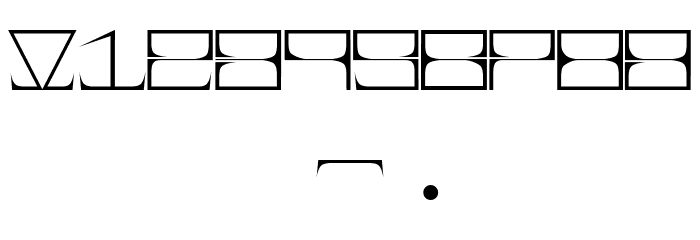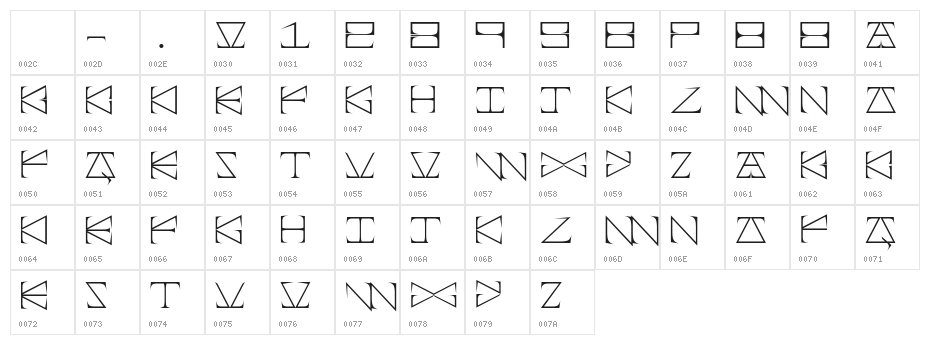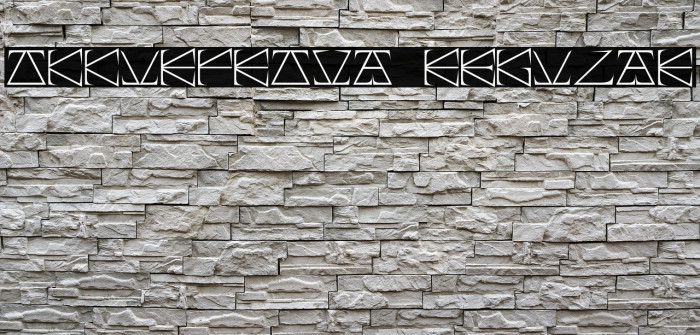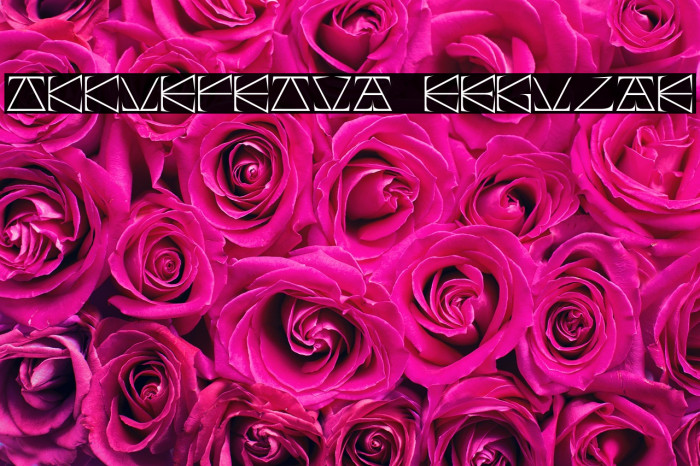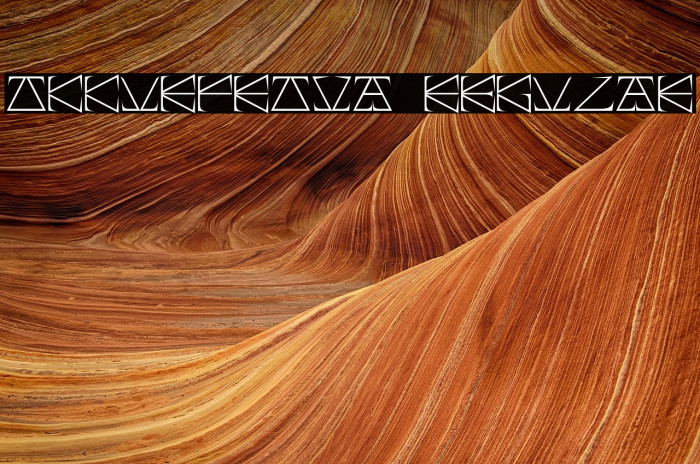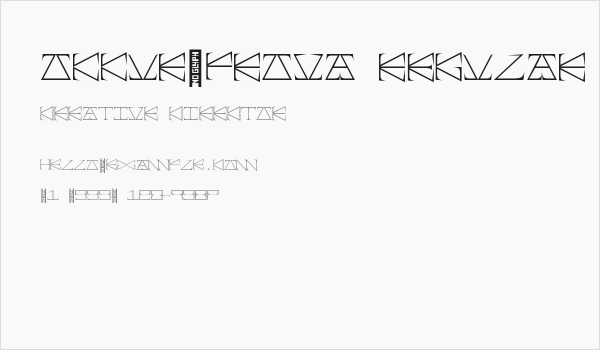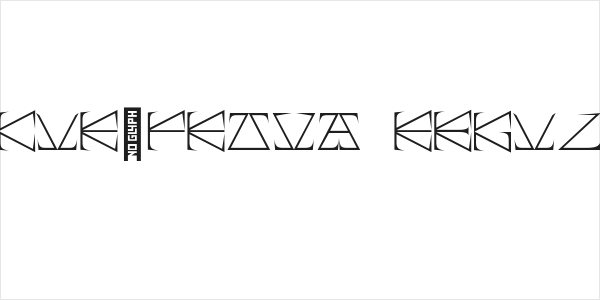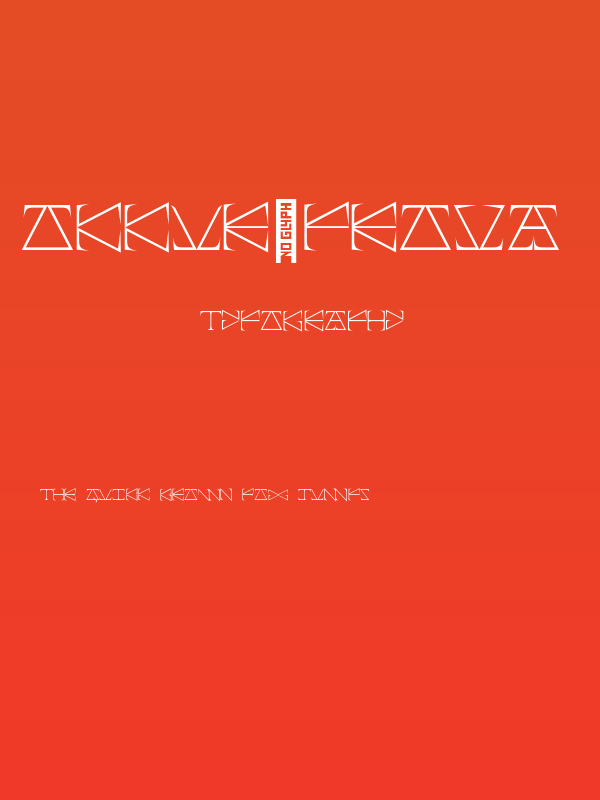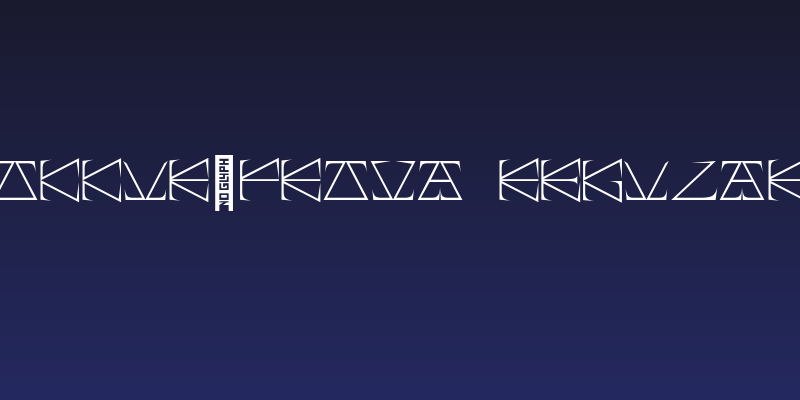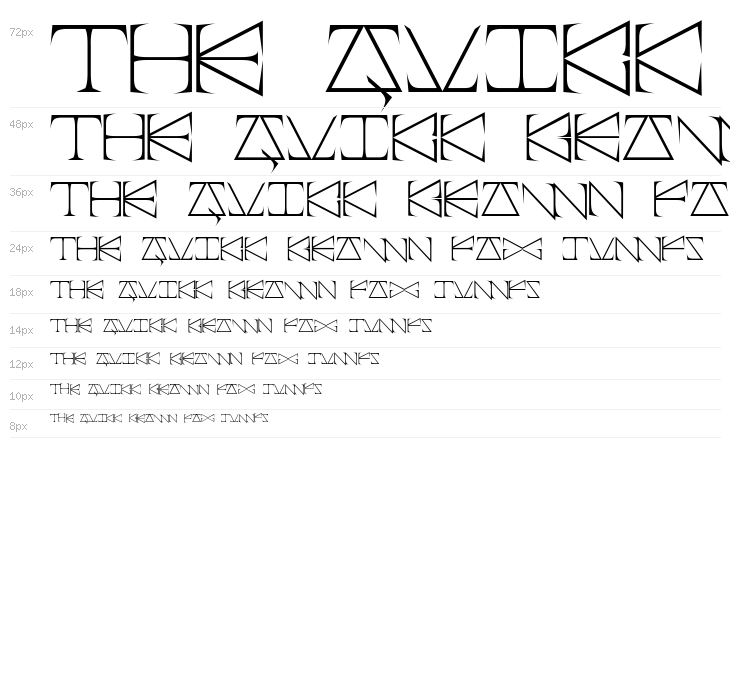
Okkur_prova Regular Font
Okkur_prova Regular Description
This font features a highly decorative and geometric style, characterized by sharp angles and a futuristic appearance. The letters are constructed with a series of interconnected lines and triangles, creating a sense of movement and complexity. The uppercase and lowercase letters share a consistent design, maintaining the angular and edgy aesthetic throughout. Numbers and special characters are similarly styled, ensuring uniformity across all glyphs. The overall look is bold and striking, making it suitable for projects that require a modern and avant-garde touch.
| Overall Style | Futuristic, Decorative |
| Proposed Projects | Ideal for sci-fi themed designs, video game titles, posters, and branding that seeks a modern and edgy look. |